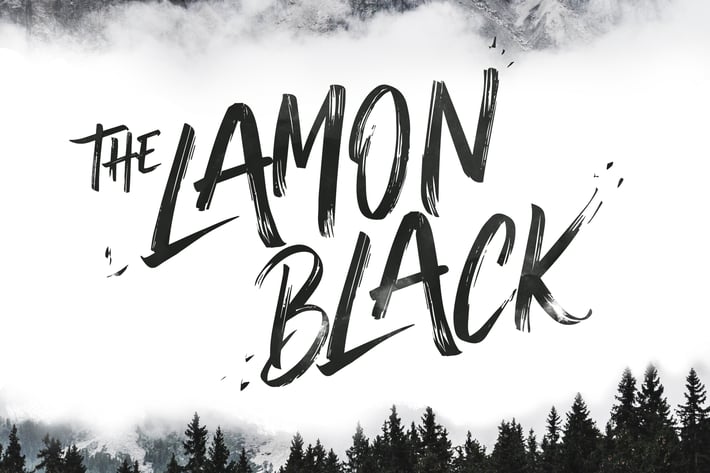
The Lamon Black - Brush Font
Lamon Black is a rough handwritten font with brush style, comes with uppercase, lowercase, numerals, and punctuation. This font will be perfect pick for various designs & artworks like social media post, brand type, posters, merchandise, packaging, headlines, merchandises, t-shirt, and many more..